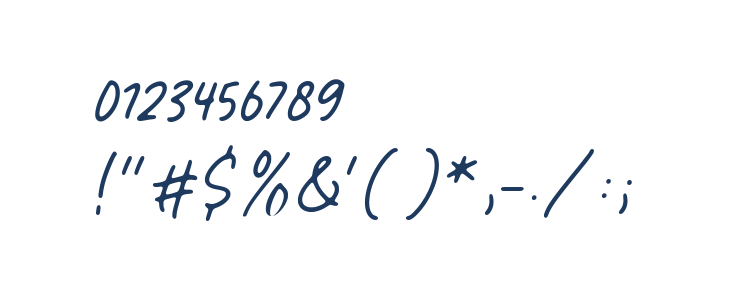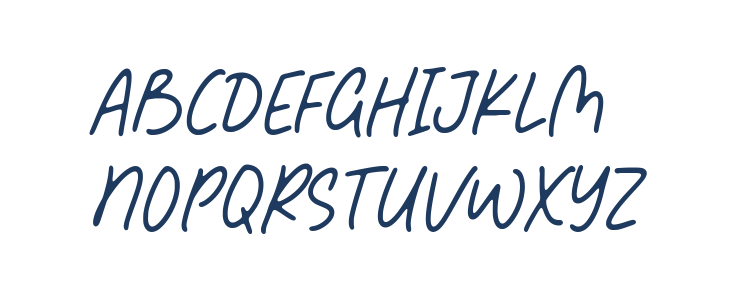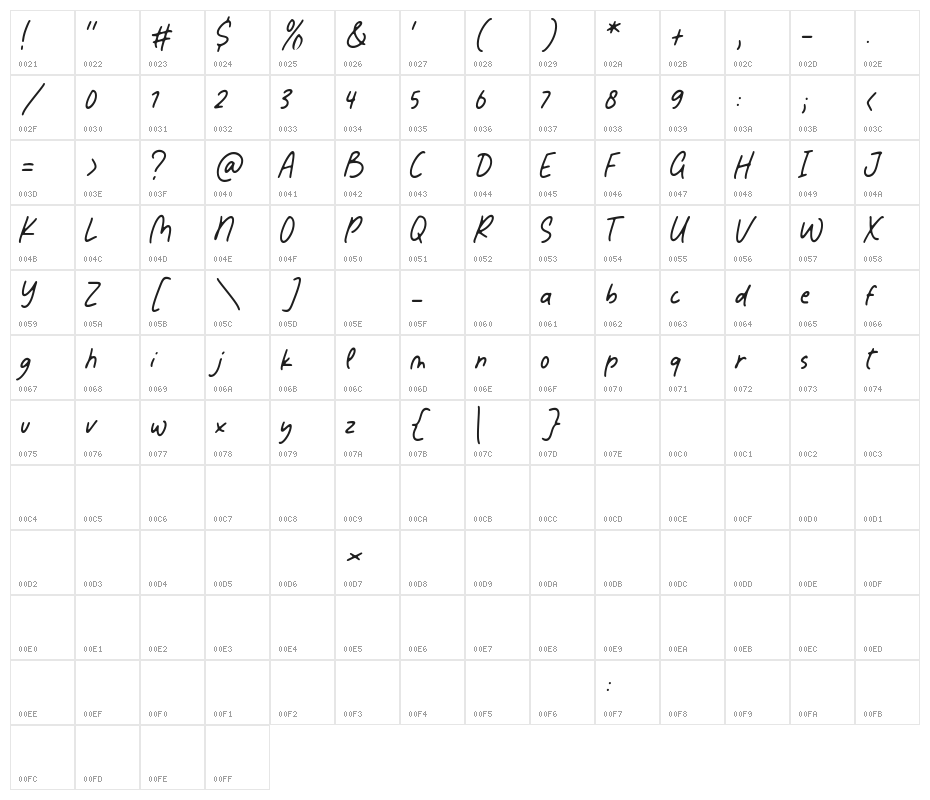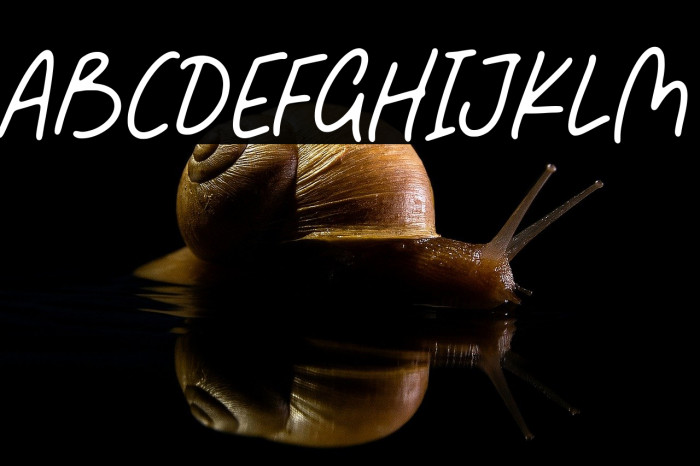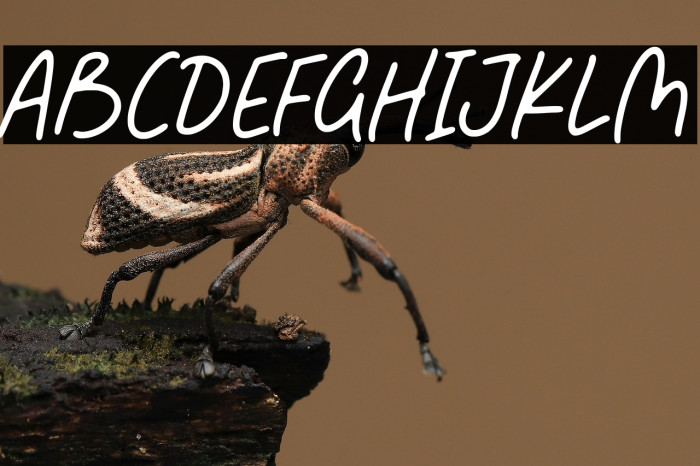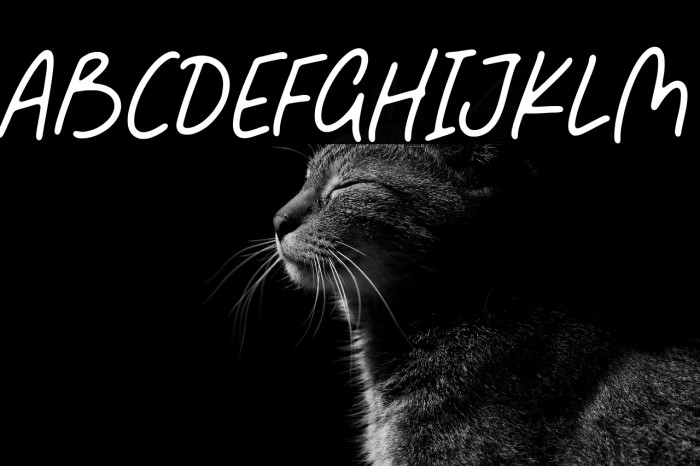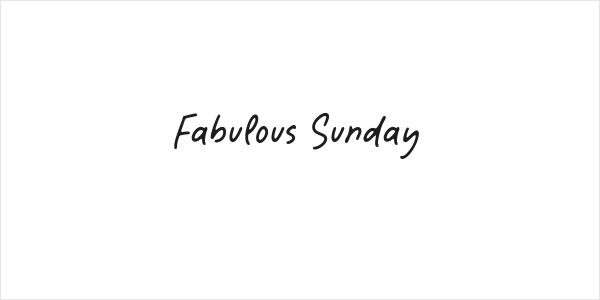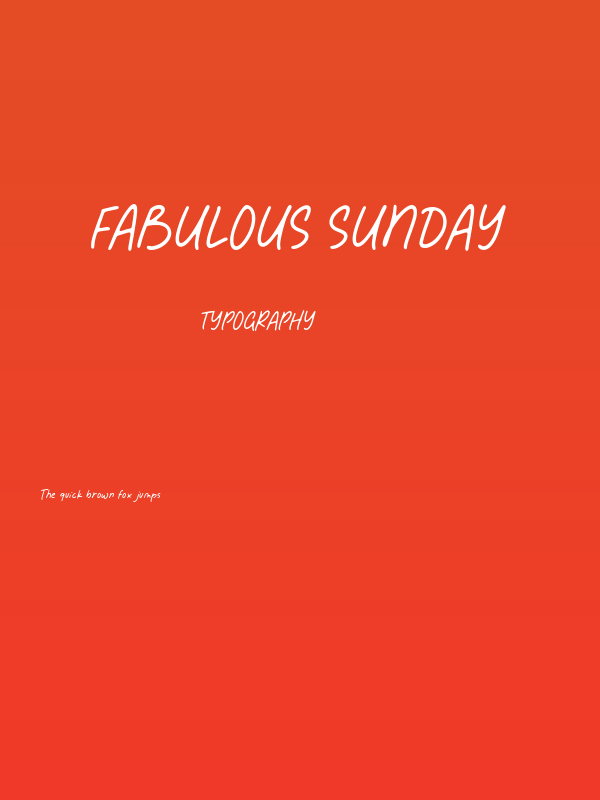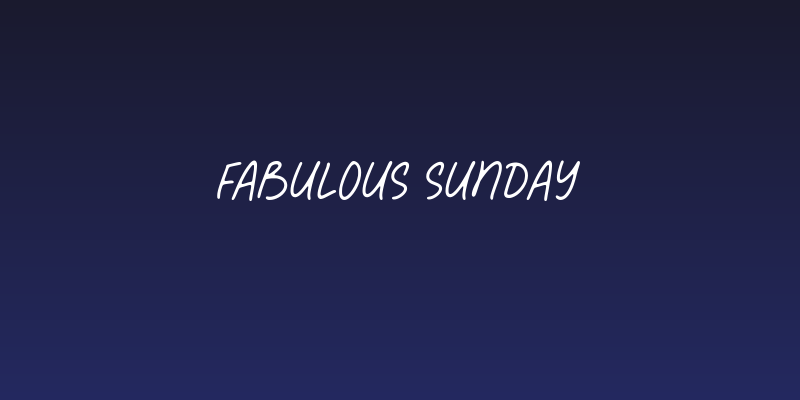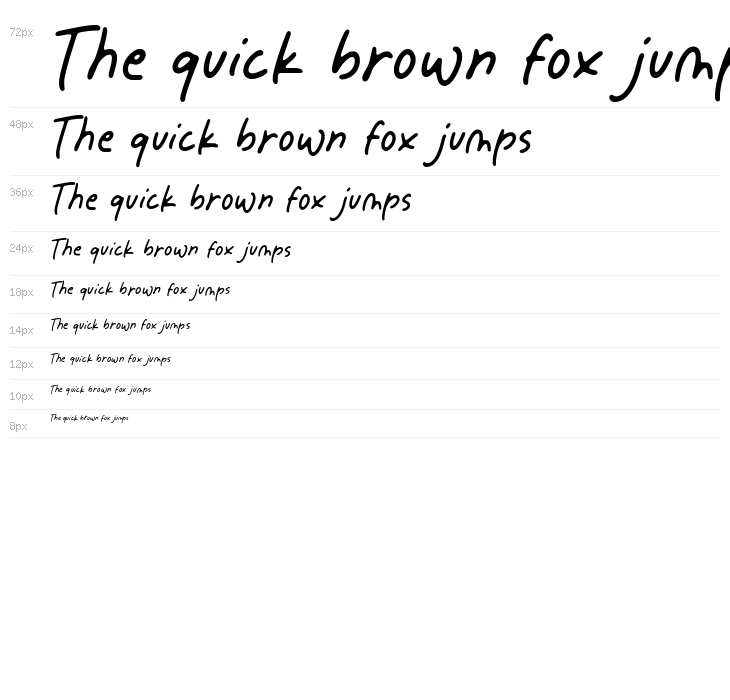
Fabulous Sunday Font
Fabulous Sunday Description
A casual, handwritten script font with smooth, flowing strokes and a natural, informal appearance. The characters have a slight slant and varied stroke thickness, mimicking natural handwriting.
| Overall Style | Casual, friendly, and approachable |
| Use Case | Invitations, social media posts, informal branding, and creative design work |
| Proposed Projects | Personal branding, greeting cards, invitations, social media graphics, informal logos, and creative projects. |